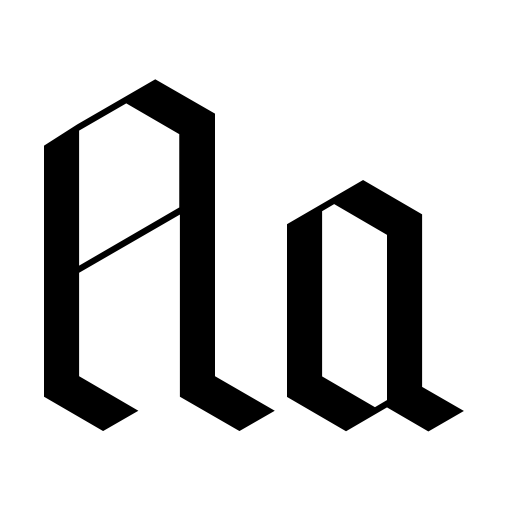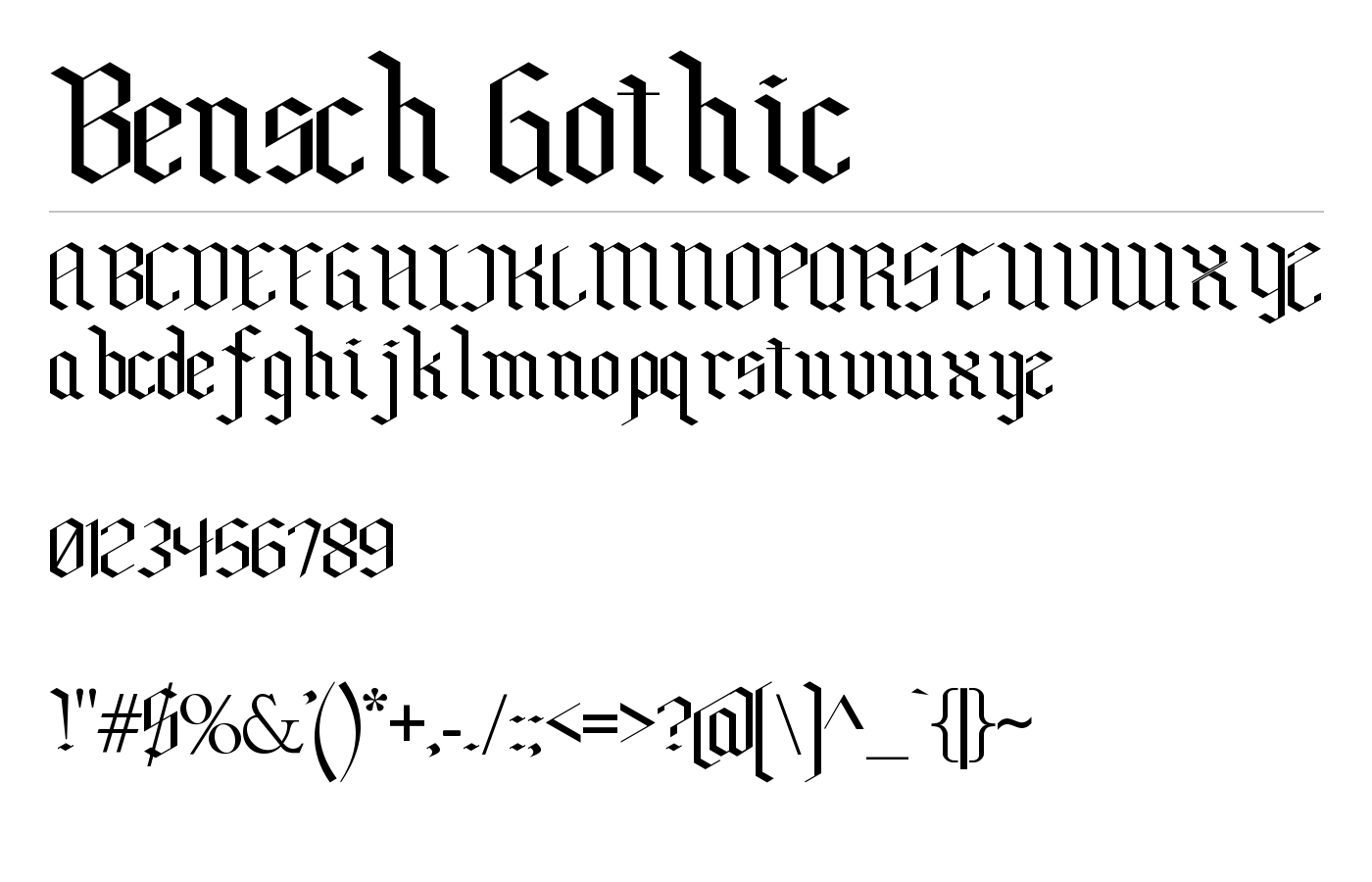
Bensch Gothic is a bold blackletter font with sharp, angular strokes and strong vertical emphasis, evoking a historic and traditional Gothic aesthetic. Its condensed letterforms and intricate details make it ideal for display use, where a dramatic and old-world character is desired, especially in headlines, logos, or branding that calls for a medieval or vintage Gothic style.
Bensch Gothic Font
About Bensch Gothic Font
| Font family | Bensch Gothic Font |
| Designer | jbensch |